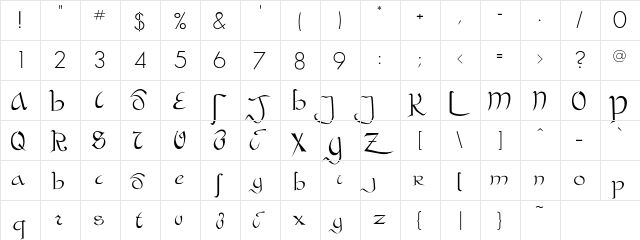
Clinton Regular
Design Context for Clinton Typeface
Clinton is a composed and adaptable typeface that performs quietly and consistently across a wide range of design contexts.